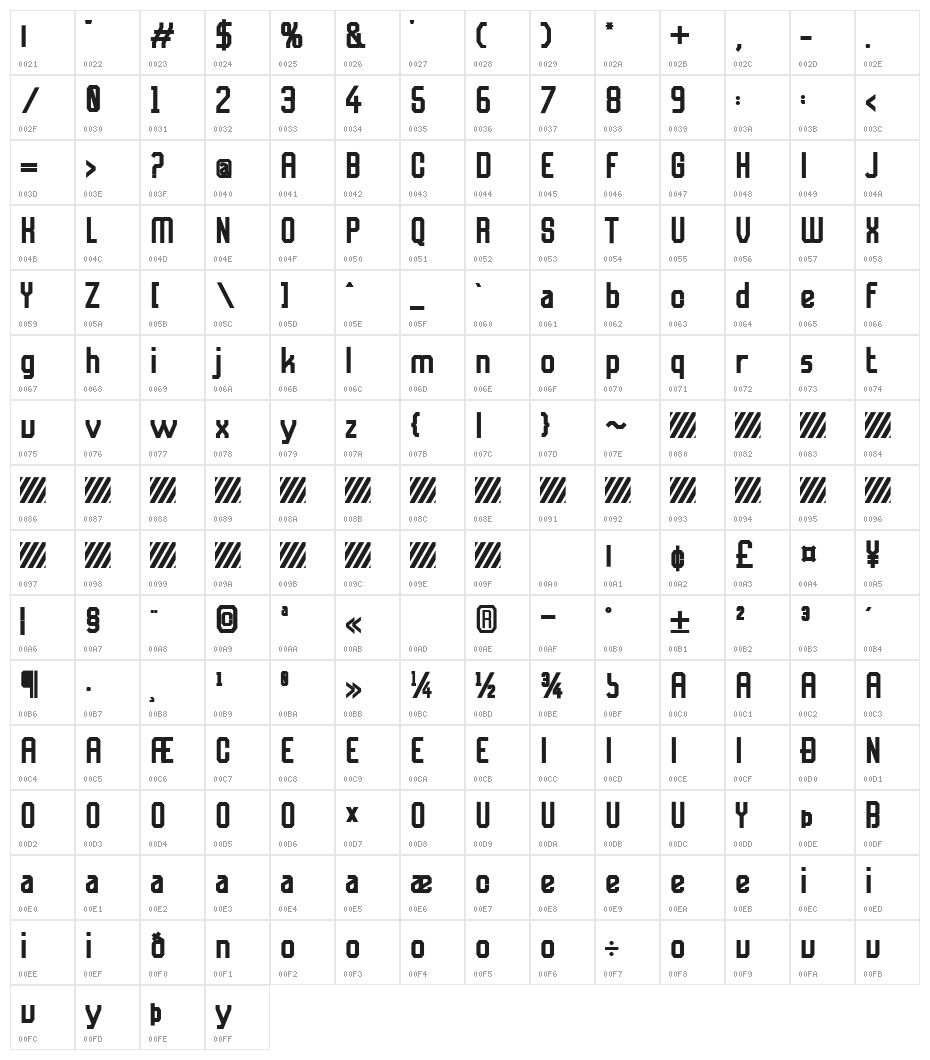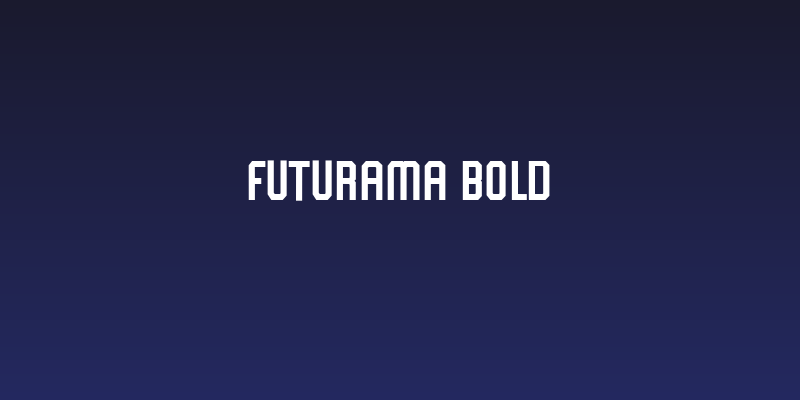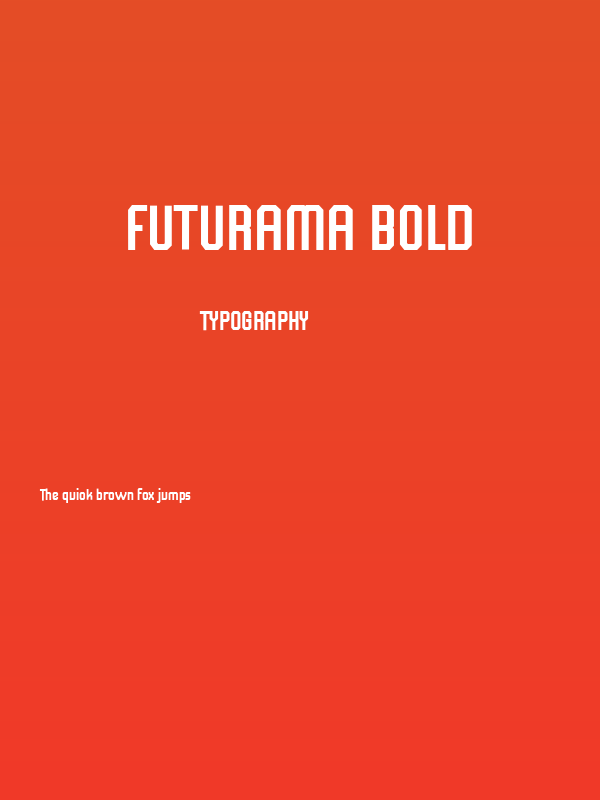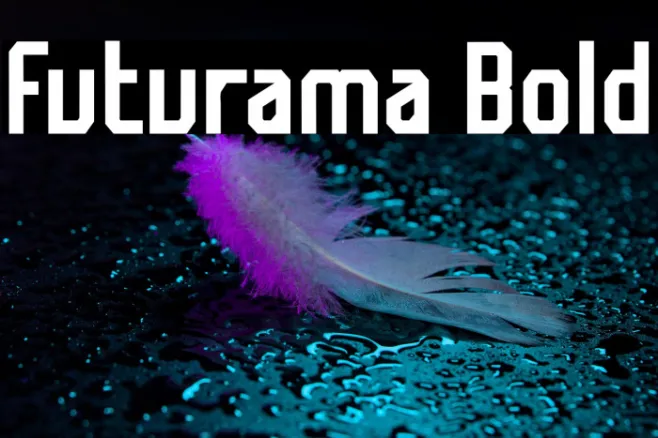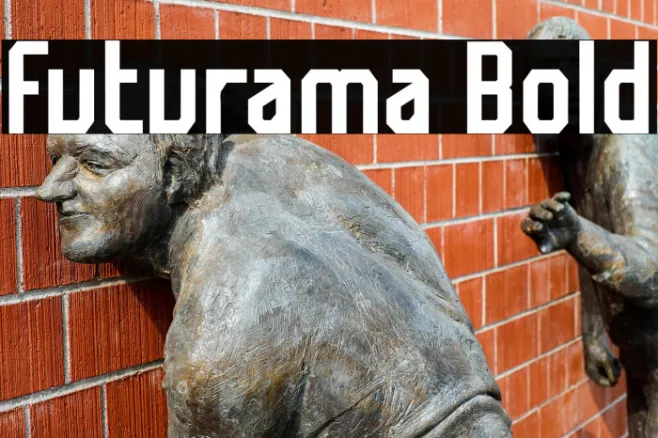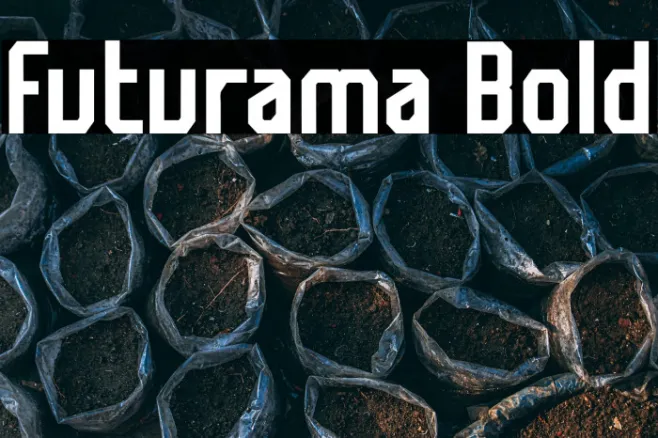
Futurama Bold Font
Futurama Bold Description
This font features a bold, geometric design with a futuristic aesthetic. The characters are constructed with sharp angles and straight lines, giving it a distinct, modern look. The uppercase letters are uniform in height, while the lowercase letters maintain a consistent style with slightly rounded edges. The numerals are clear and legible, matching the overall angular theme. Special characters are designed to complement the alphanumeric set, maintaining the bold and structured appearance. This font is ideal for projects that require a strong, impactful visual presence.
| Proposed Projects | Ideal for sci-fi themed designs, technology branding, video game interfaces, and modern posters. |